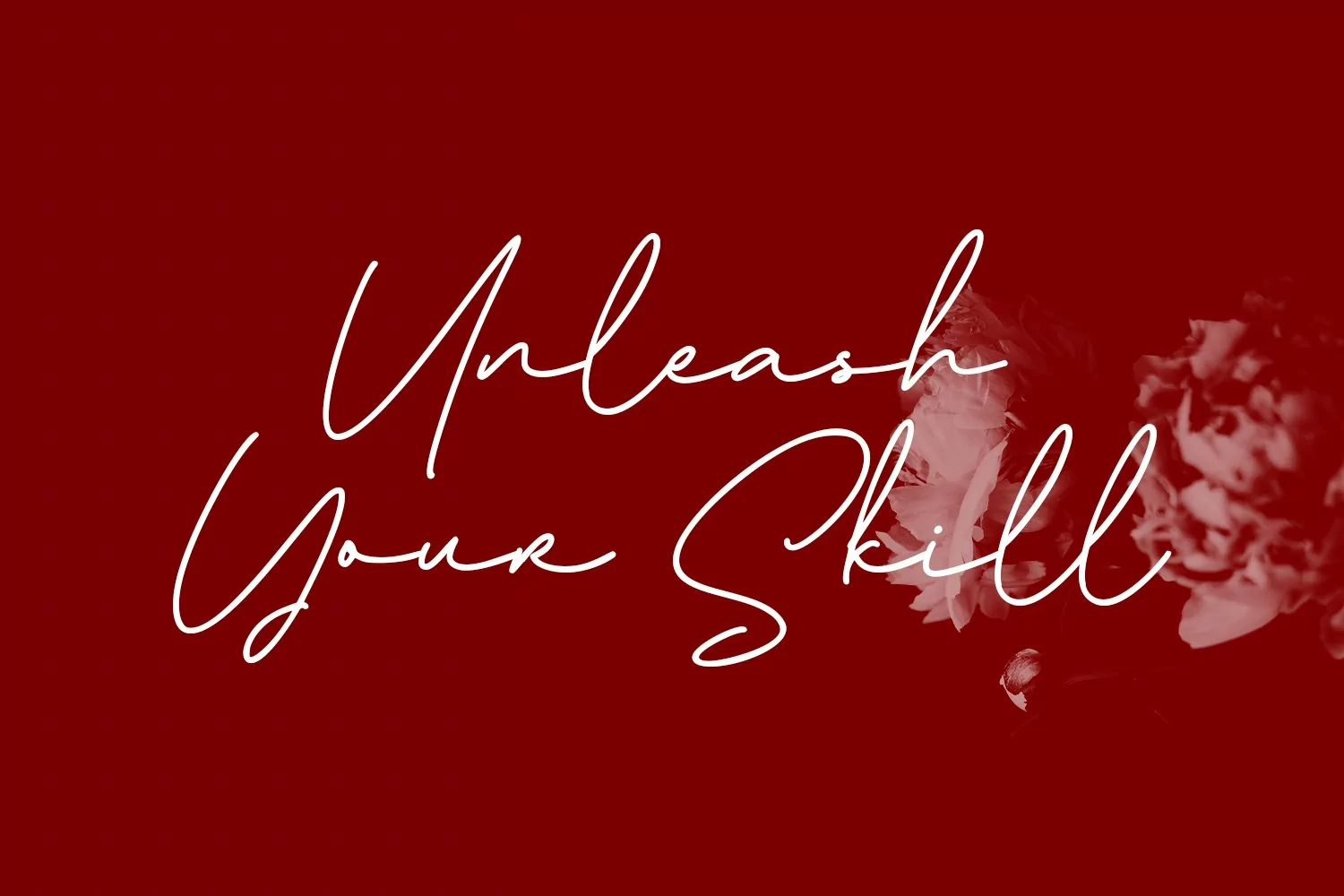
Coflocks is an signature script font. With mono-line stroke, fun character with a bit of ligatures and alternates. To give you an extra creative work. Coflocks font support multilingual more than 100+ language. This font is good for logo design, Social media, Movie Titles, Books Titles, a short text even a long text letter and good for your secondary text font with sans or serif. Make a stunning work with Coflocks font.